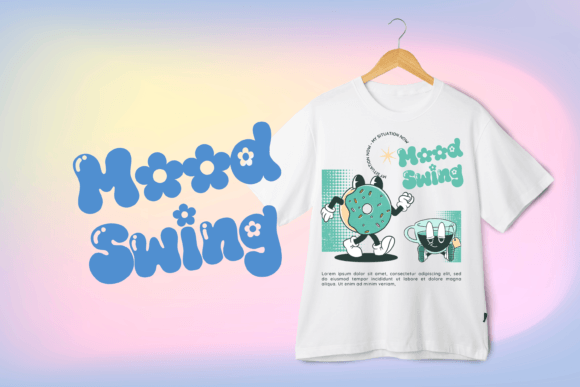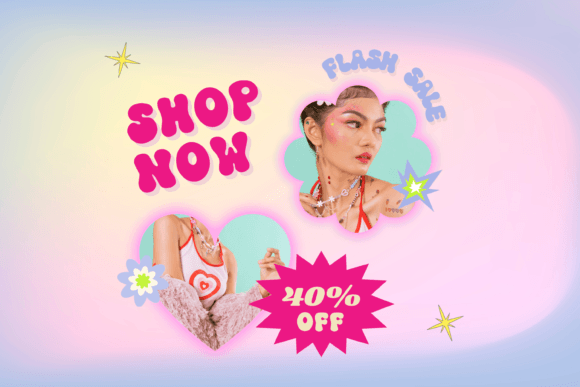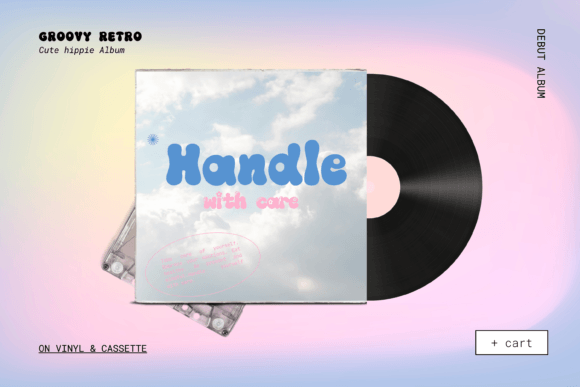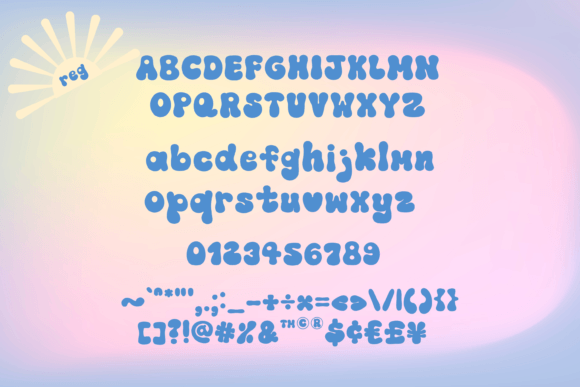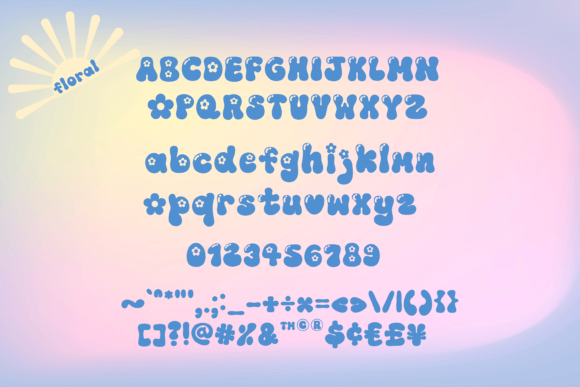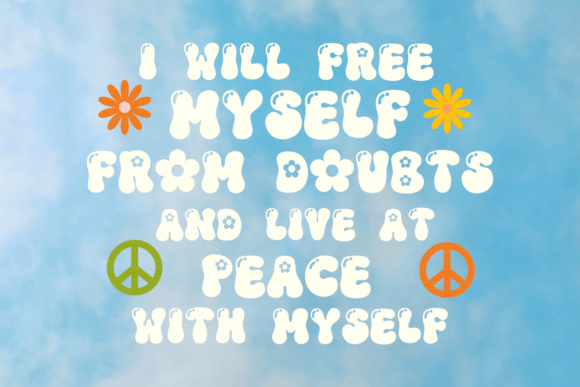
The Groovy Flower Font: A Retro Revival for Your Designs
I still remember the time I was working on a vintage-inspired poster for a client, and I just couldn’t find the right font to capture the essence of the ’60s and ’70s. The client wanted something playful, yet nostalgic, and I was determined to deliver. That’s when I stumbled upon the Groovy Flower font, and it was love at first sight! 💕
This adorable font has a way of transporting you back to a time of flower power, free-spirited energy, and playful vibes. In this article, I’ll share my experience with Groovy Flower, its features, and how to make the most of it in your designs.
- ✨ The whimsical curves and funky vibes that make it perfect for retro-inspired designs
- ✅ The font’s versatility – it works well for both digital and print projects
- 💥 The instant nostalgic feel it gives to any design
- 🎉 The variety of OpenType features, glyphs, and stylistic alternates to experiment with
While Groovy Flower is an amazing font, there are a few things to keep in mind:
- ⚠️ Some of the more intricate details might get lost at smaller font sizes
- 🤔 It might not be the best choice for very formal or professional designs, as it has a distinctly playful vibe
The Designer Inspiration Behind Groovy Flower
Groovy Flower was inspired by the iconic designs of the ’60s and ’70s, a time of great creativity and experimentation. The font’s designer, [imaginary designer], was fascinated by the era’s playful, carefree spirit and sought to capture it in a modern font. With Groovy Flower, [imaginary designer] aimed to create a font that would bring a burst of nostalgic energy to any design.
Q: What type of projects is Groovy Flower best suited for?
A: Groovy Flower is perfect for vintage-inspired posters, retro branding, and any design that needs a playful, nostalgic twist.
Q: Is Groovy Flower available in different font styles?
A: Yes, Groovy Flower comes with a range of OpenType features, glyphs, and stylistic alternates to experiment with.